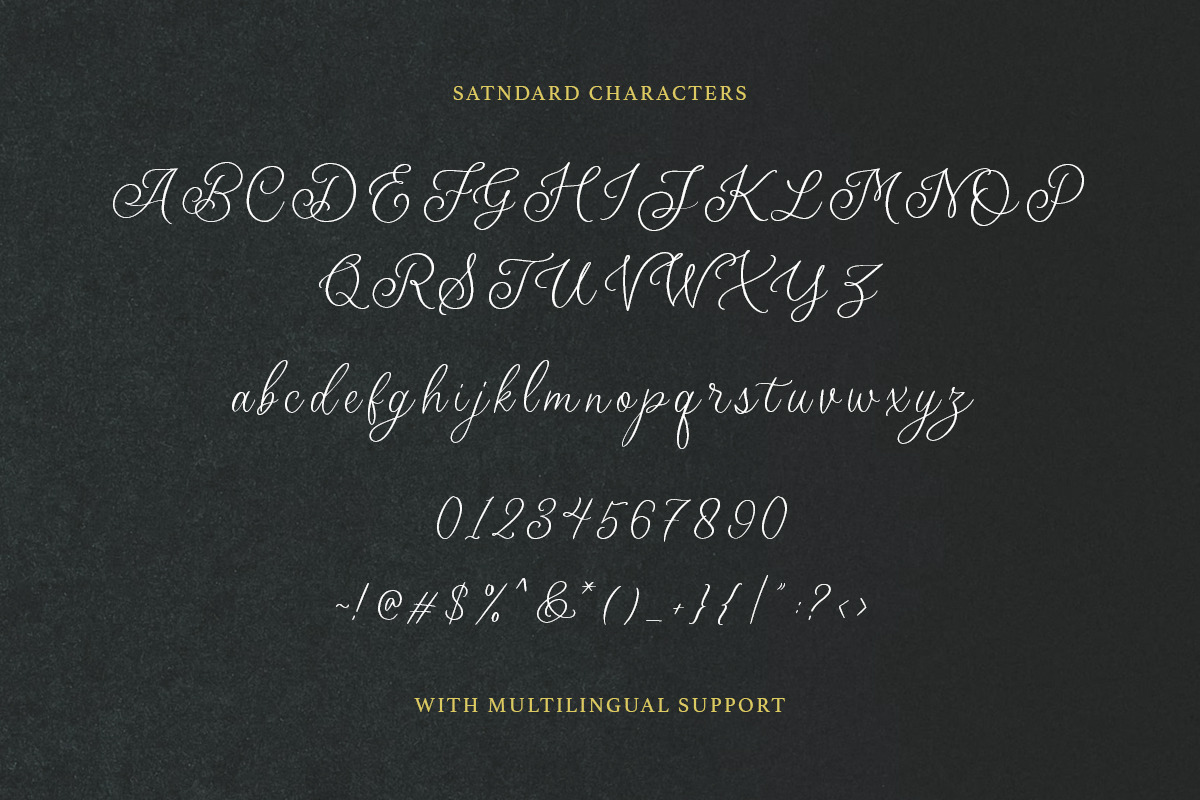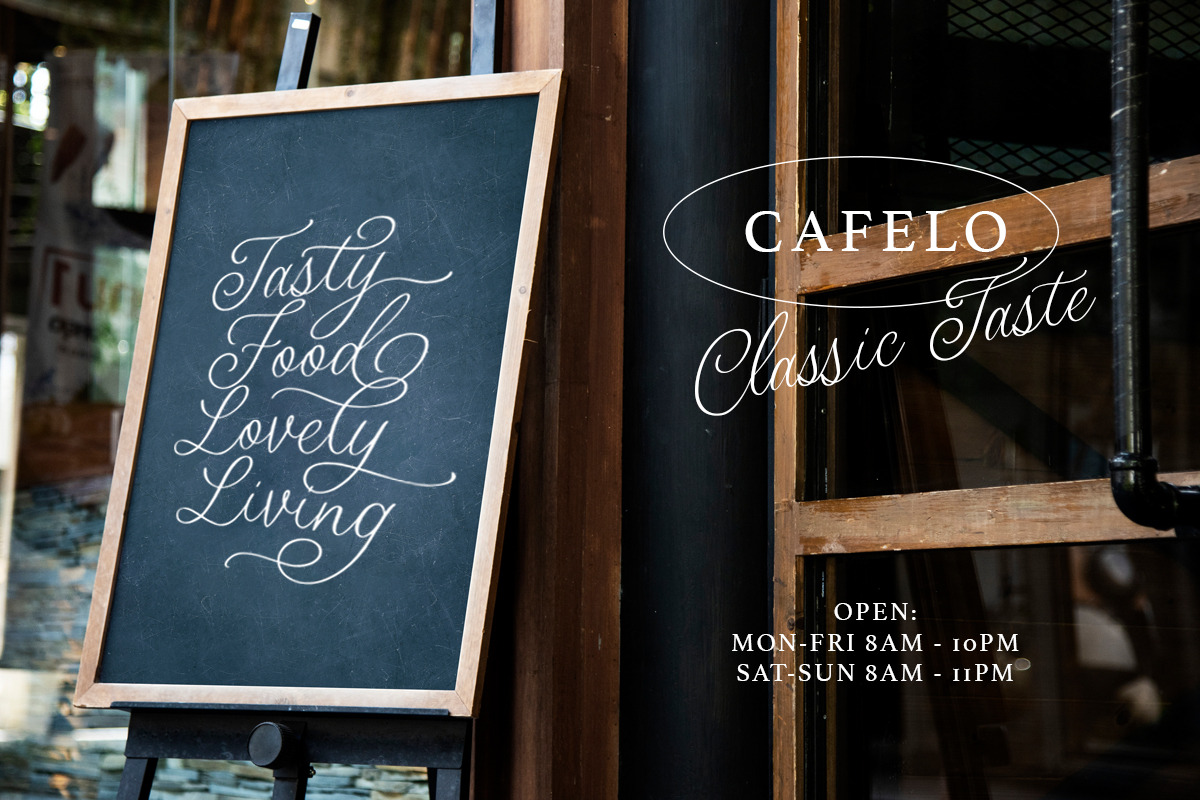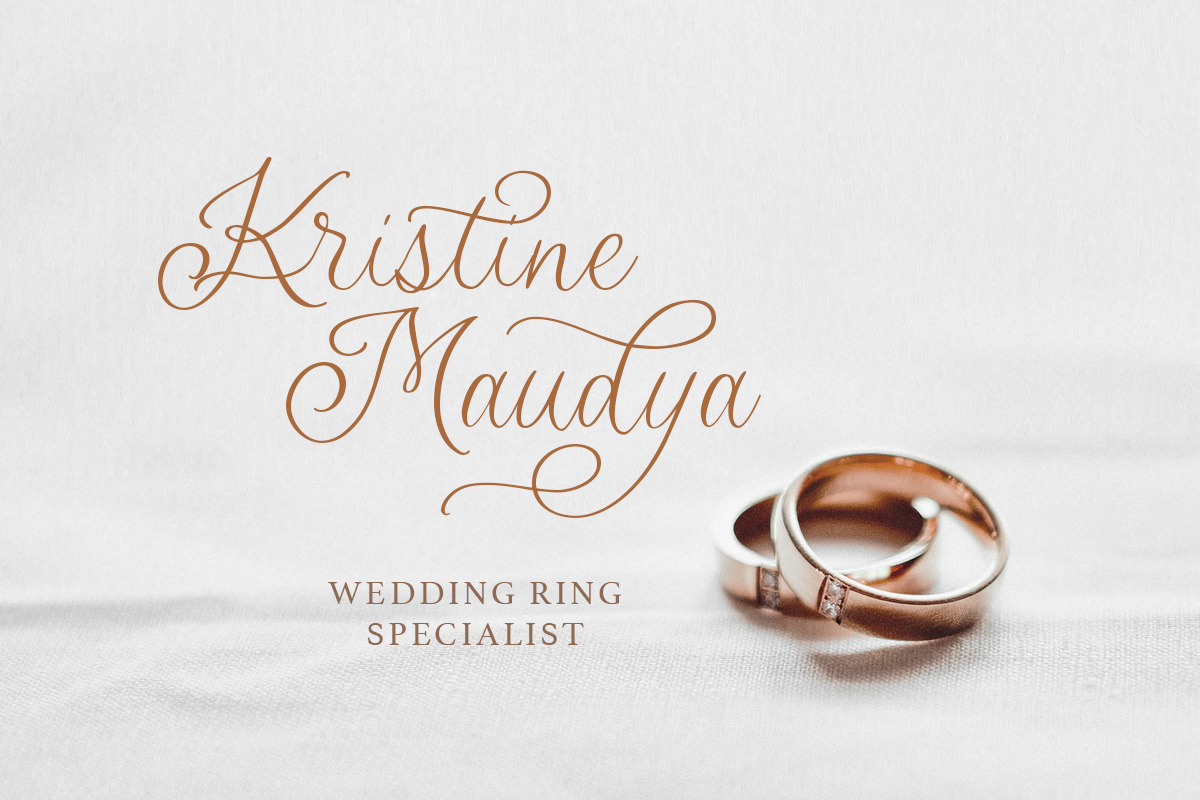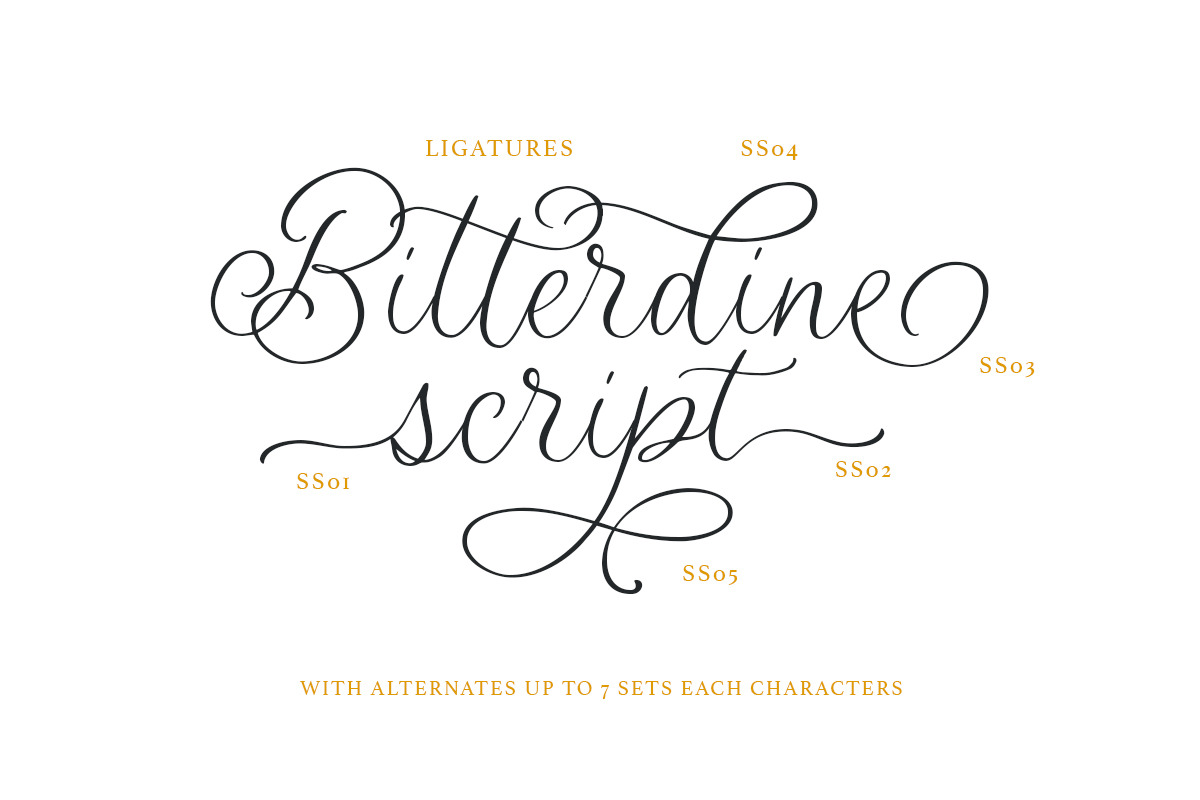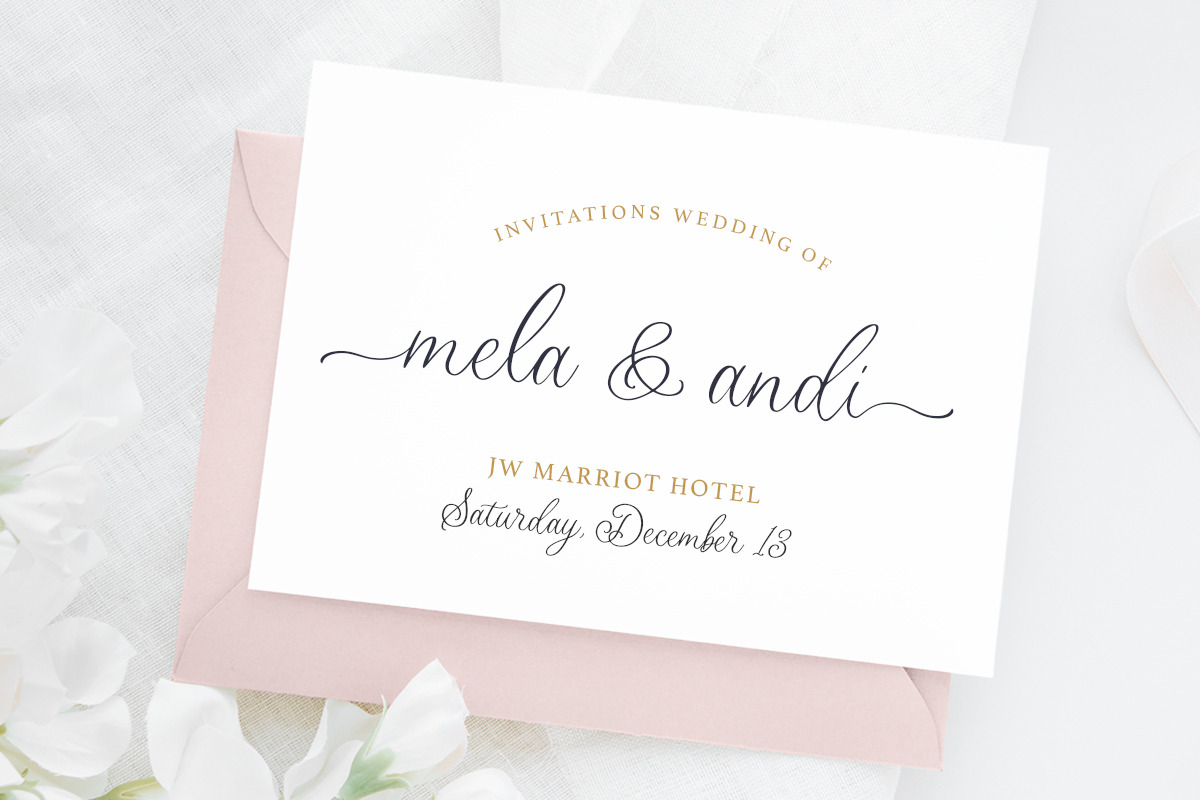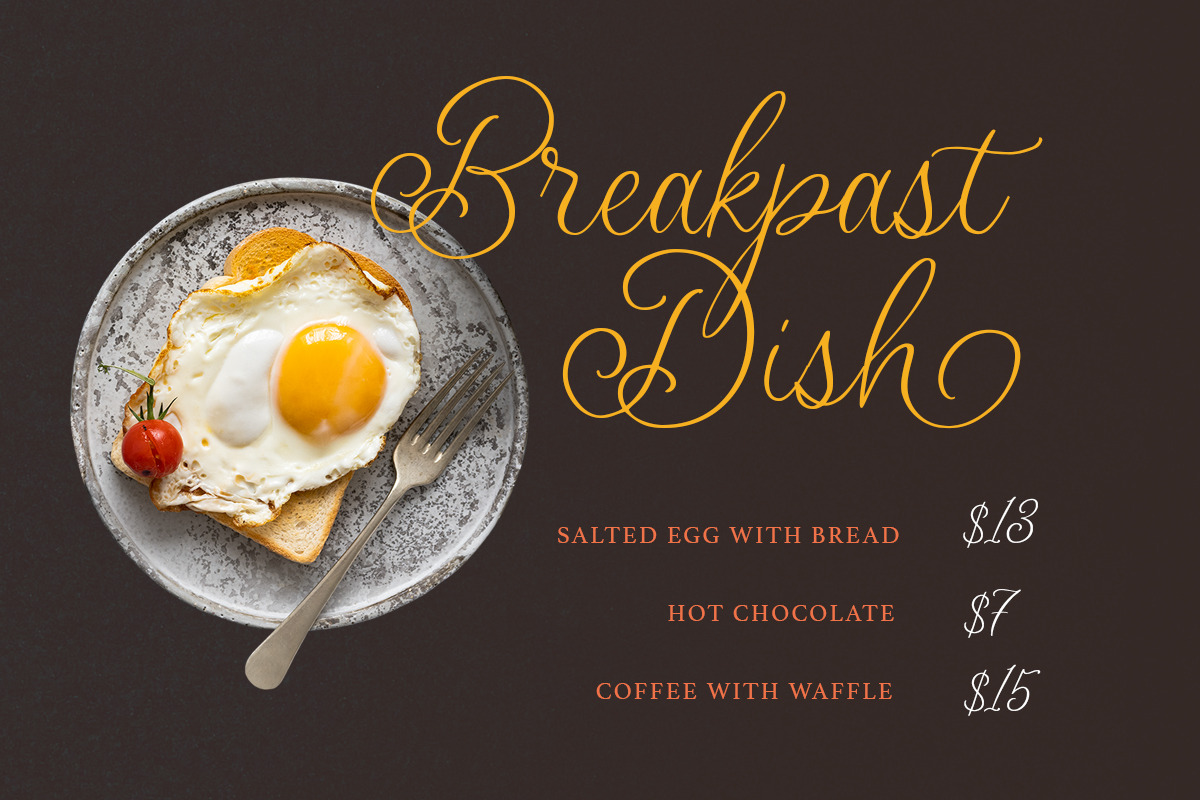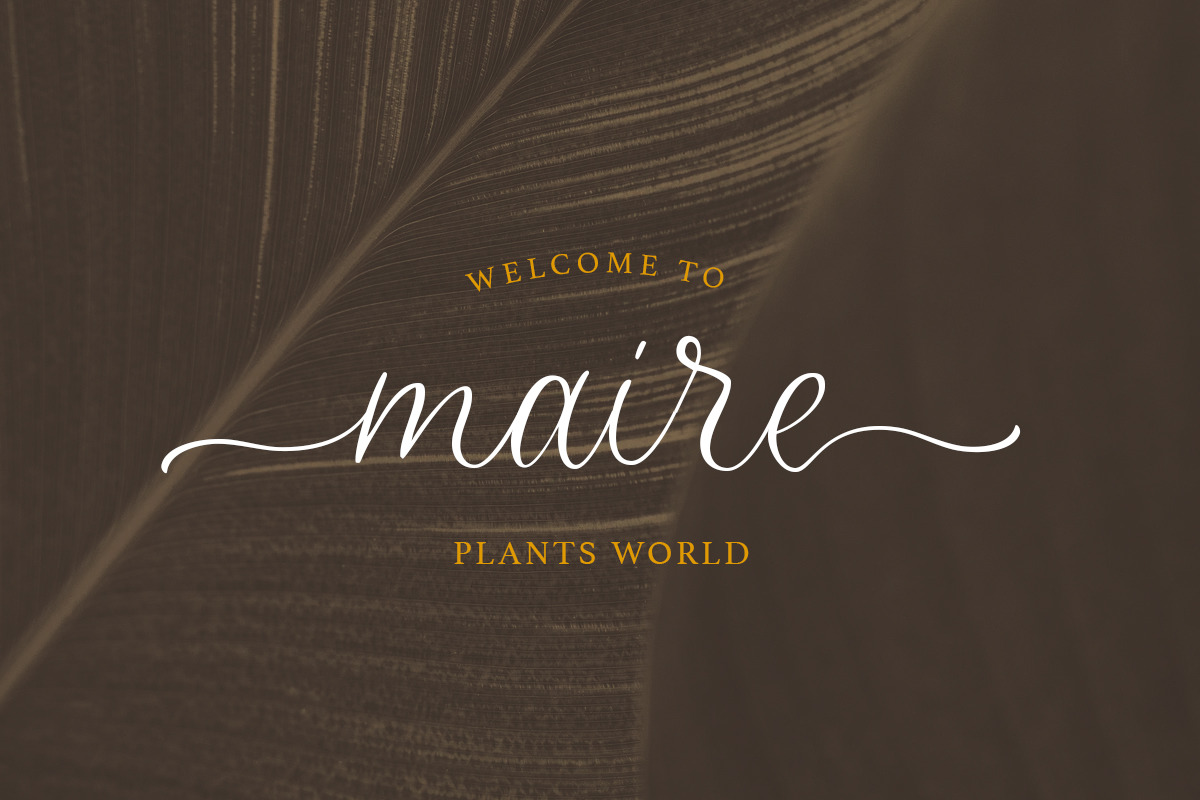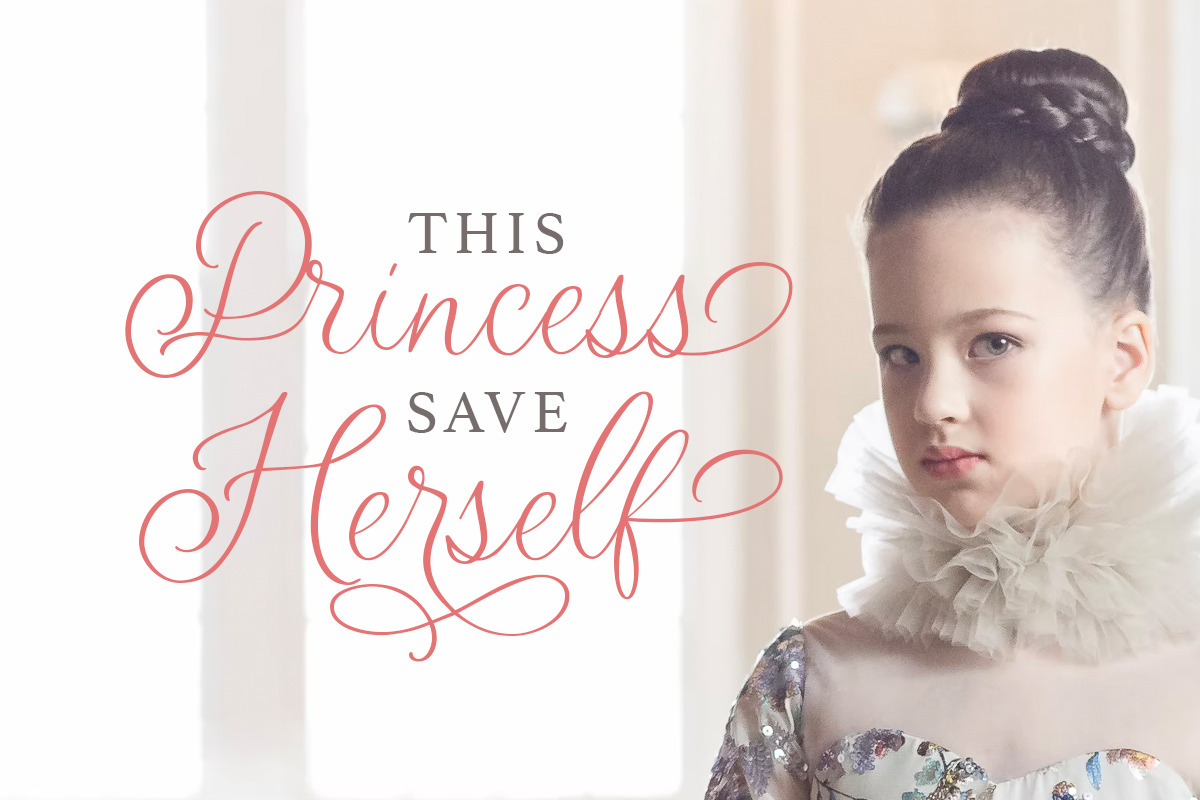
Bitterdine - Natural Calligraphy
Introducing, Bitterdine - a natural calligraphy Script
Bitterdine Script is modern and natural calligraphy that contain lowercase, uppercase, symbol, and also support multi language. Including ligatures, initial & terminal swash, special swash, and many alternates that up to 7 set each characters. You can use this font to make a logo for branding, beautiful fashion design, suitable for wedding invitation, or handwritten quote. Also already PUA Encoded.